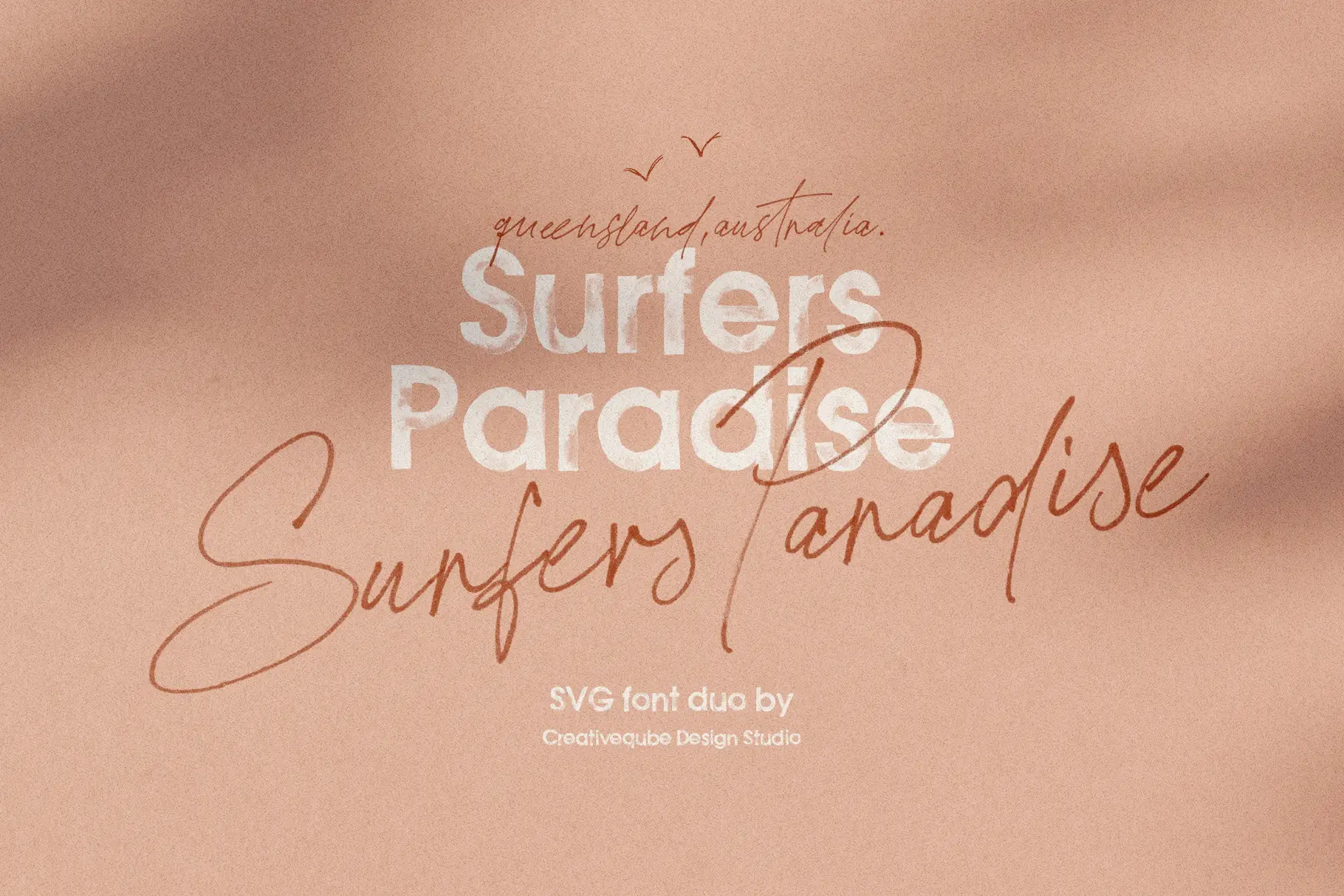
Surfers Paradise Svg Font Collection By Creativeqube
The Surfers Paradise SVG Font Collection by Creativeqube is a unique set of fonts designed to capture the essence of beach life and adventure. This collection features a variety of styles that are perfect for creating eye-catching designs for both digital and print media.
• Handcrafted SVG fonts with intricate details
• Multiple font styles to suit various design needs
• High-quality vector graphics for crisp rendering
Ideal for branding, logos, web design, and print materials, the Surfers Paradise SVG Font Collection adds a playful touch to any project.